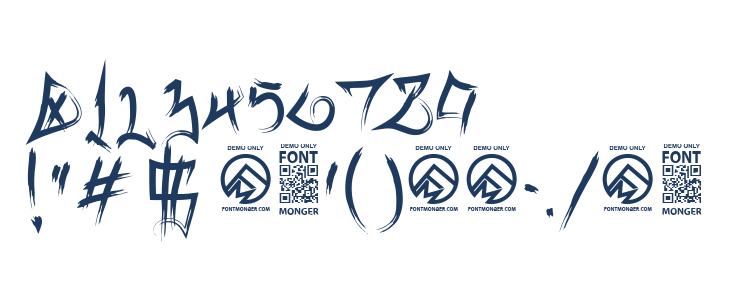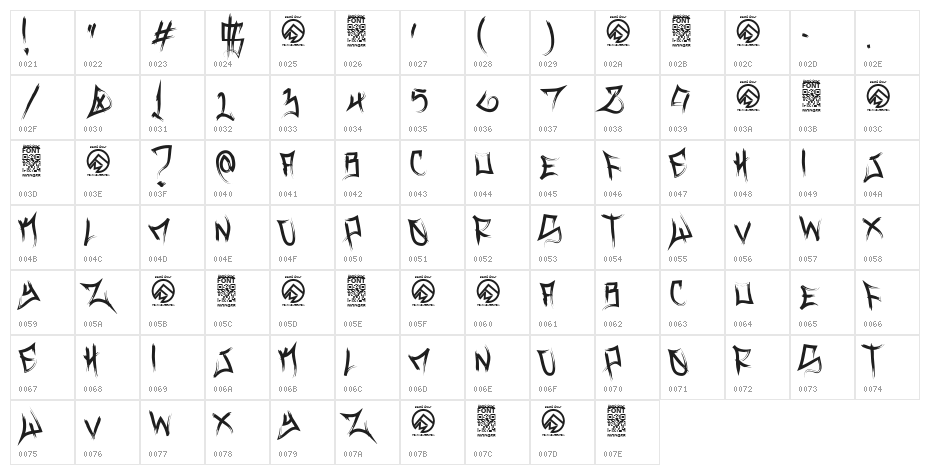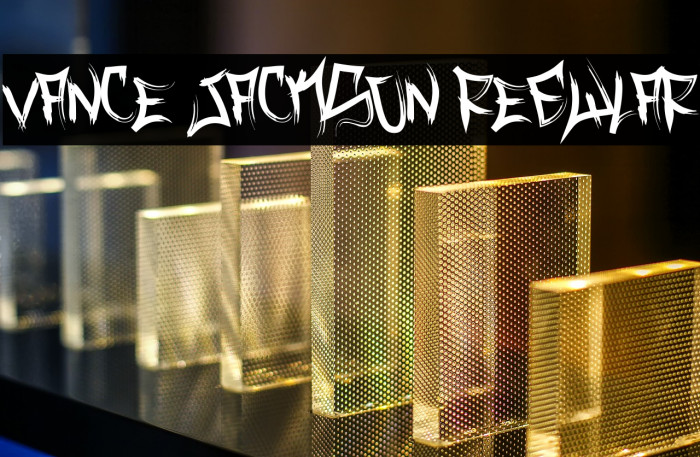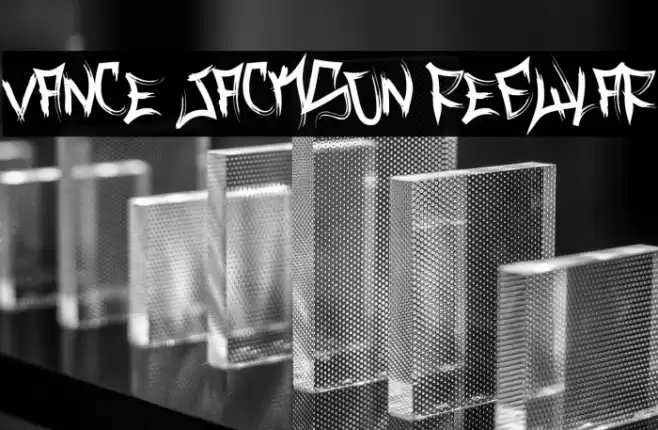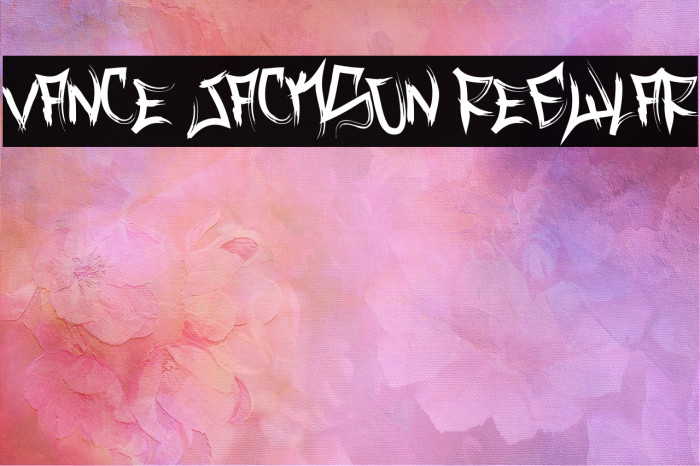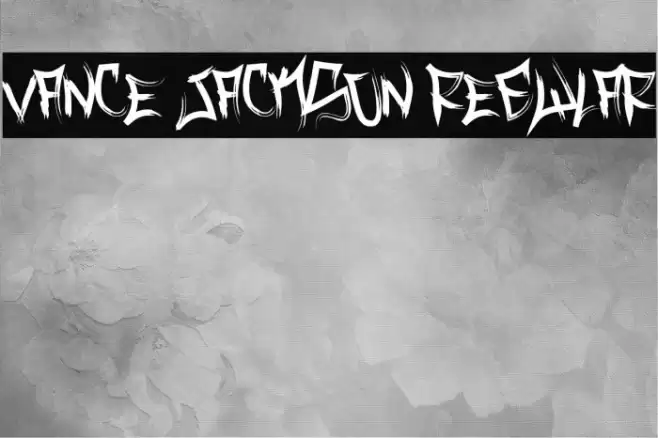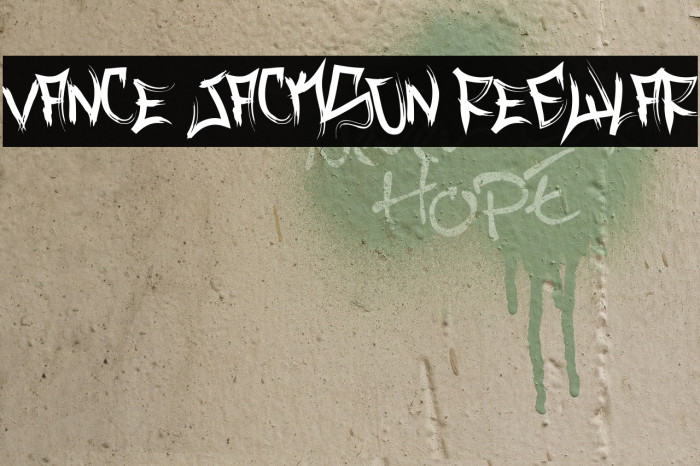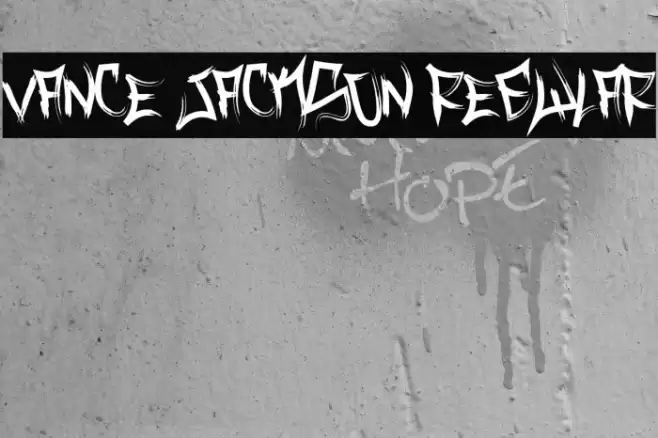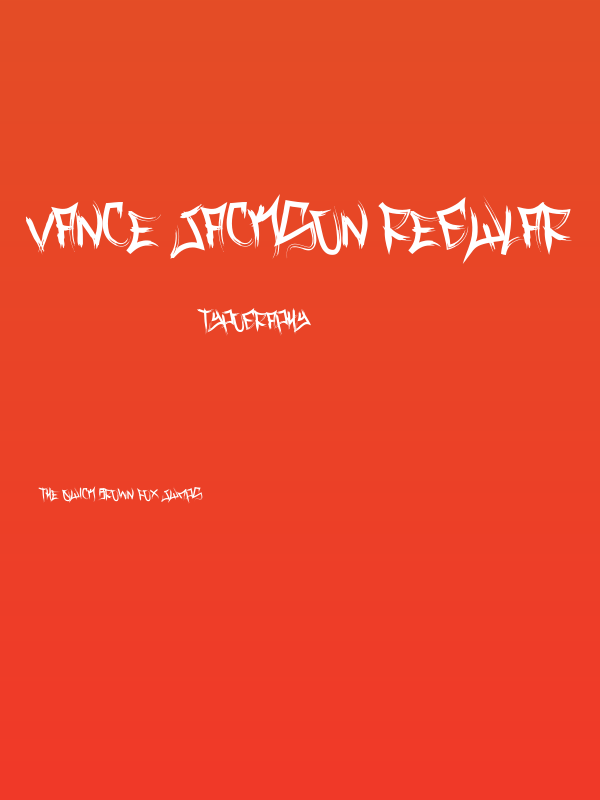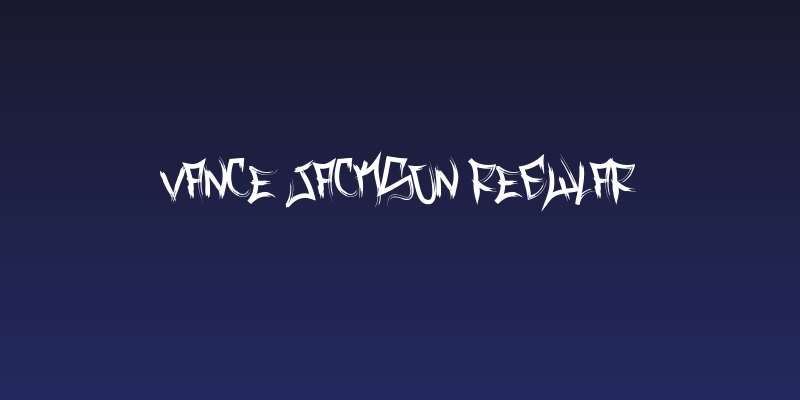
Vance Jackson Regular Font
Vance Jackson Regular Description
This font exhibits a bold, edgy style with sharp, angular lines and a graffiti-like appearance. The characters are dynamic and energetic, featuring exaggerated strokes and unique, artistic flair. The uppercase and lowercase letters maintain a consistent design ethos, with each character displaying a sense of movement and intensity. The numerals and special characters follow the same aesthetic, contributing to a cohesive and striking visual identity. This font is ideal for projects that require a bold statement or a modern, urban feel.
| Overall Style | Modern, Urban, Edgy |
| Proposed Projects | Perfect for street art designs, edgy branding, music album covers, and urban-themed posters. |